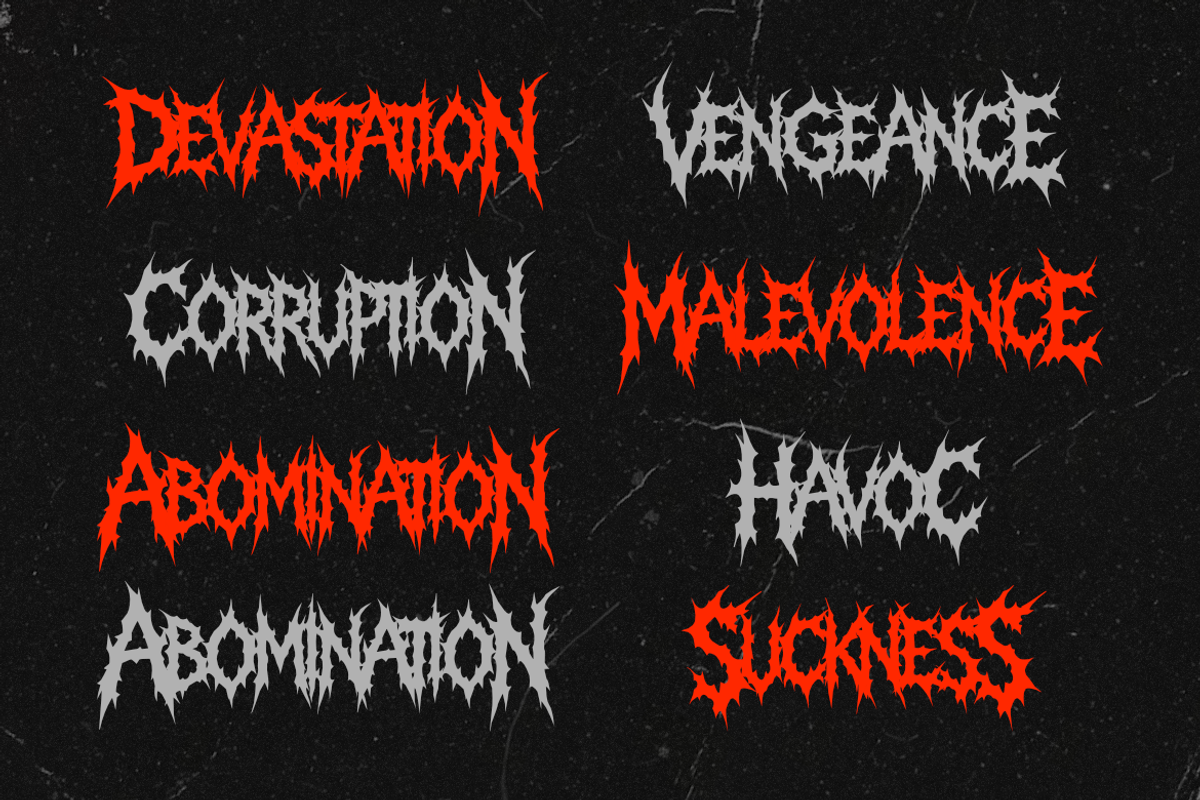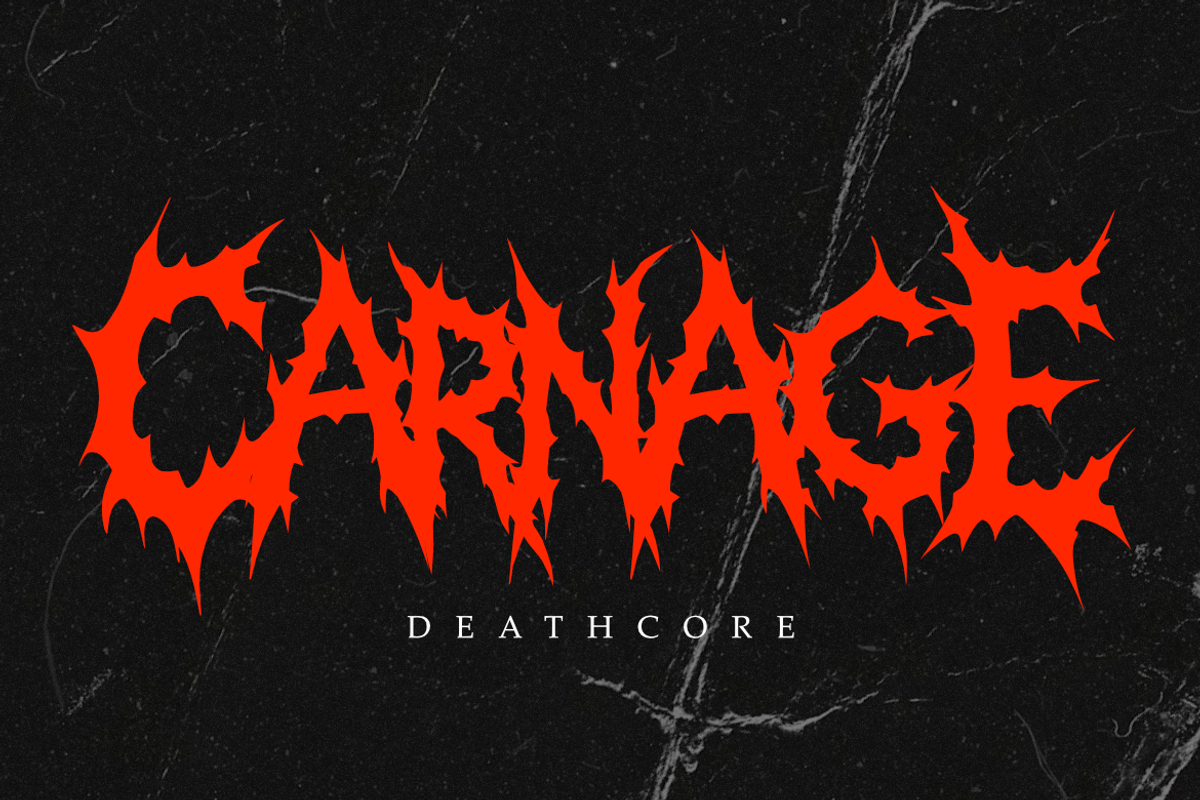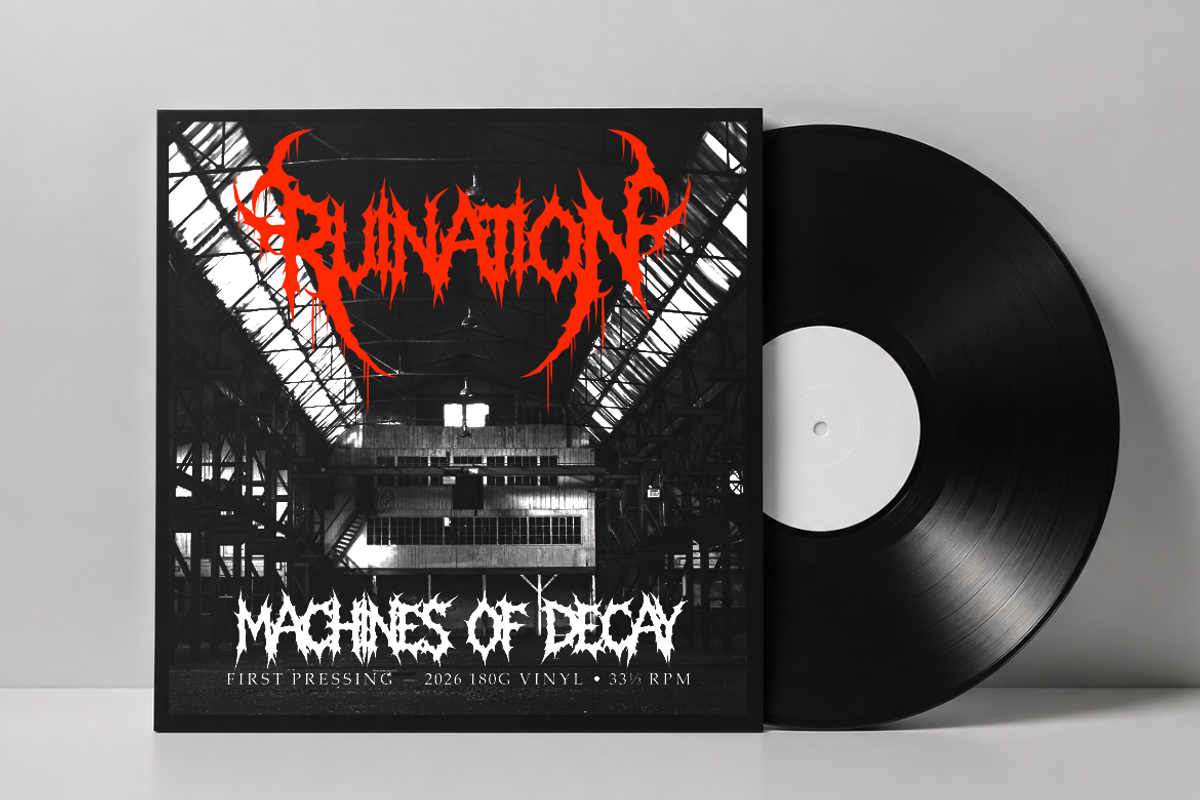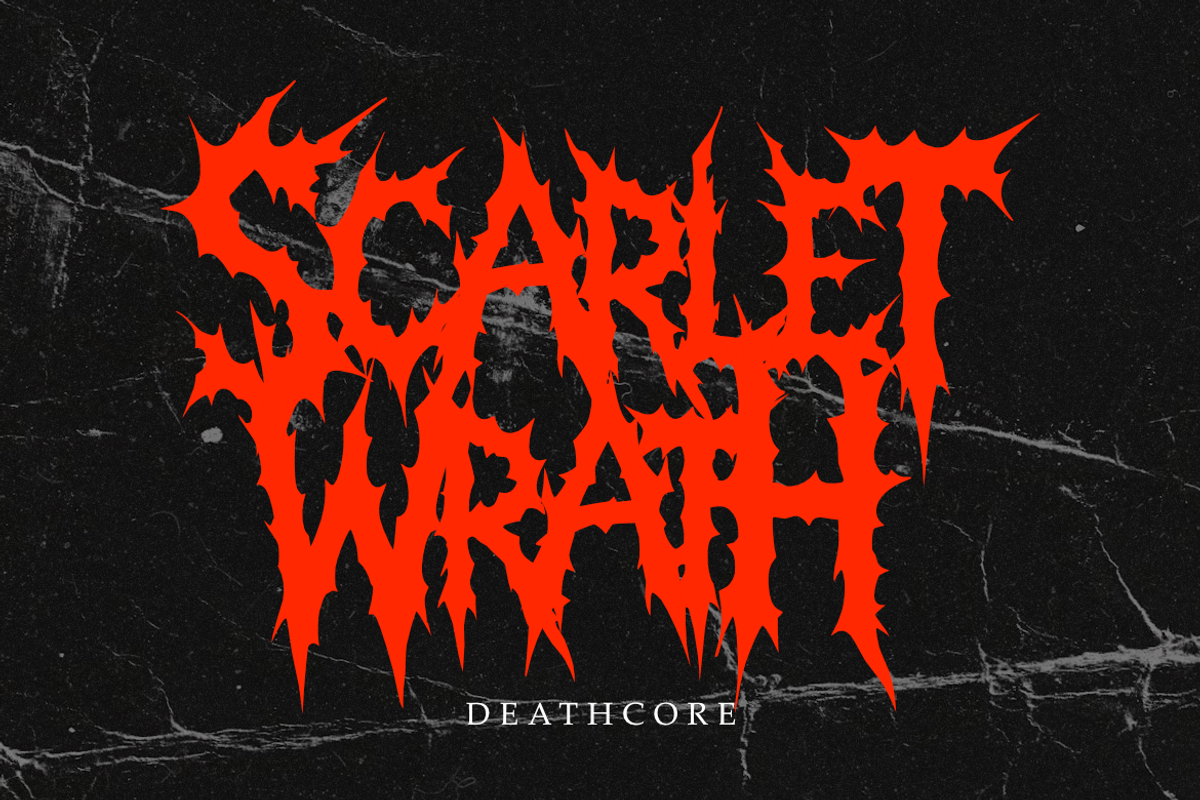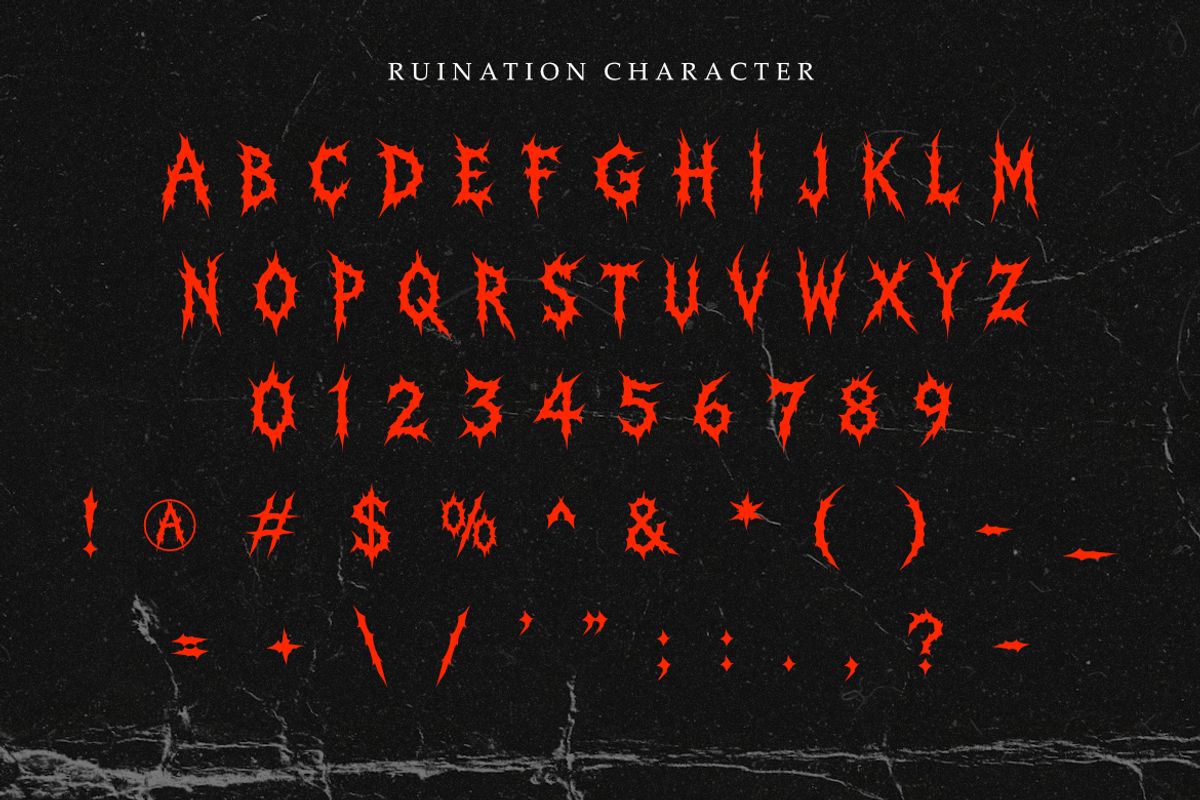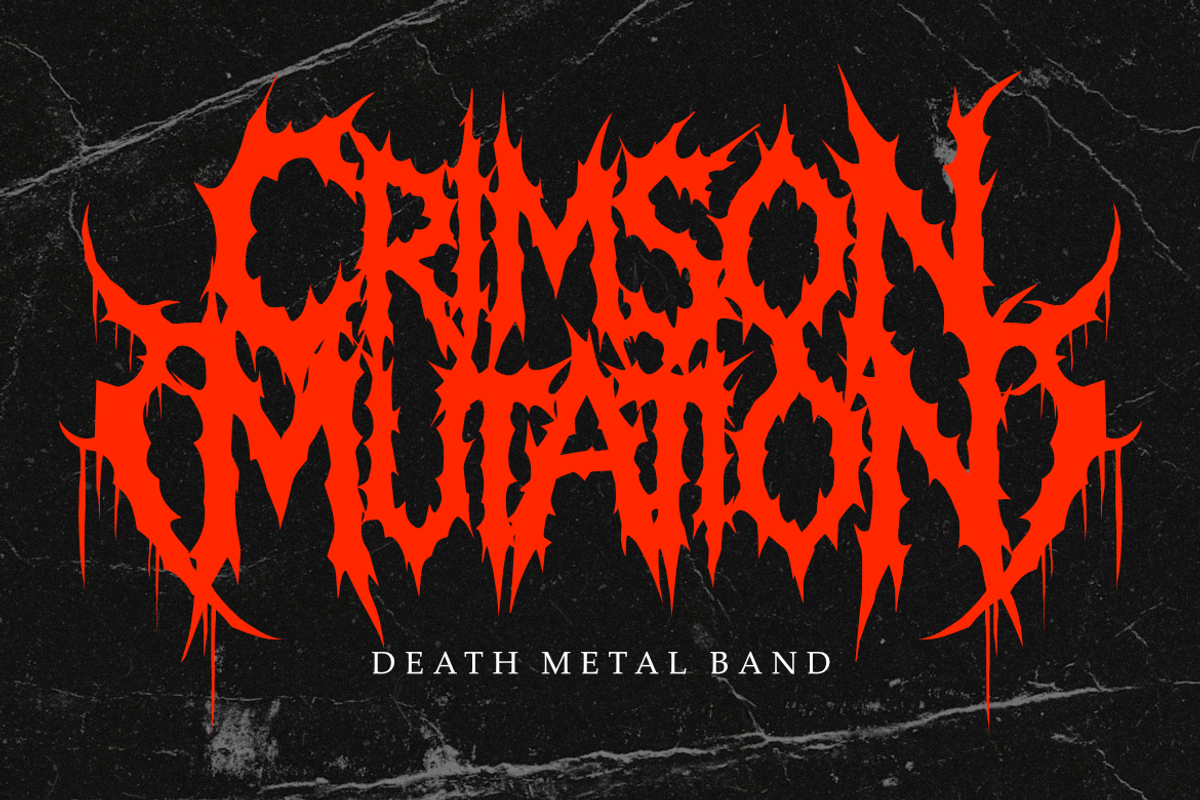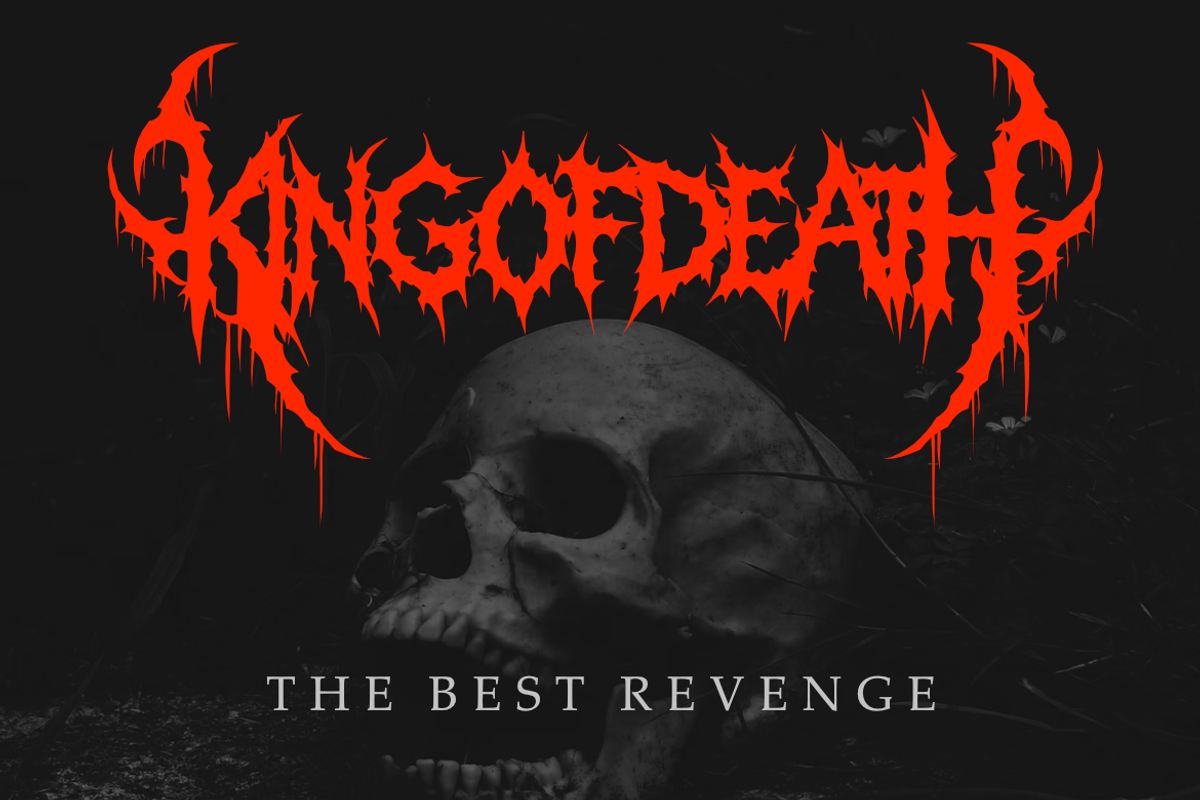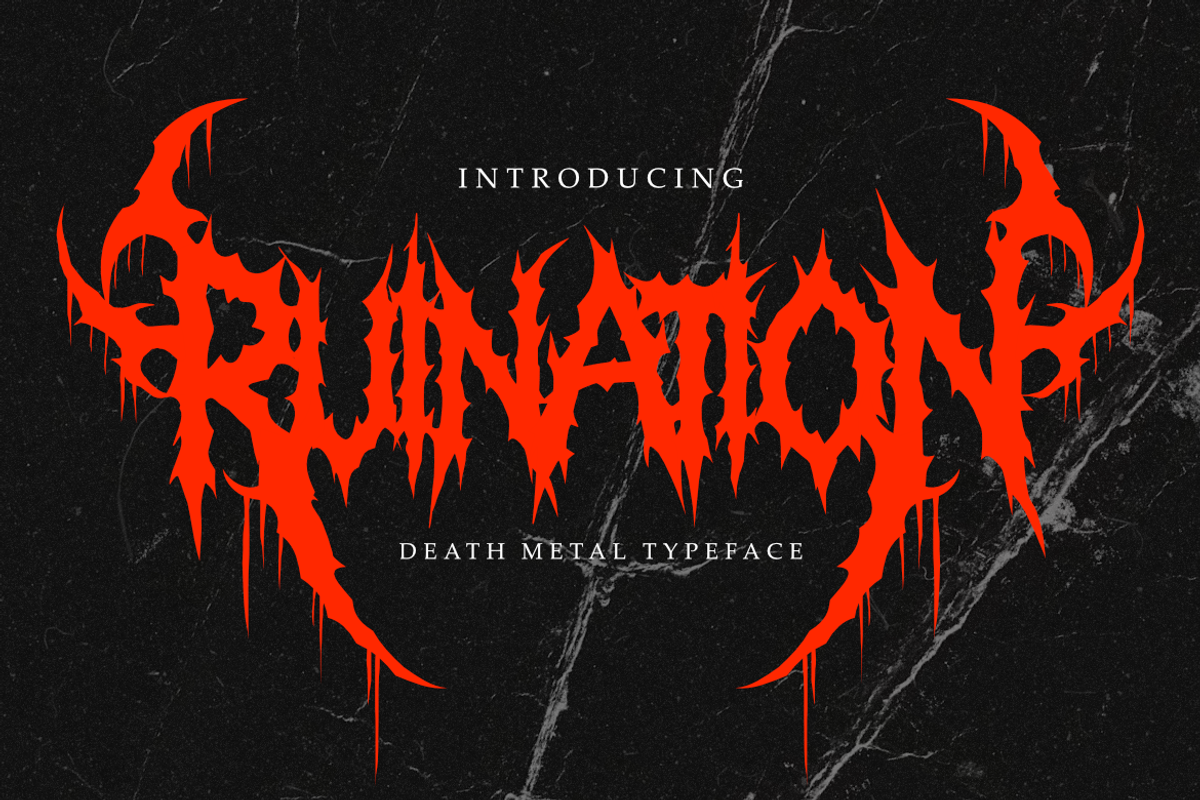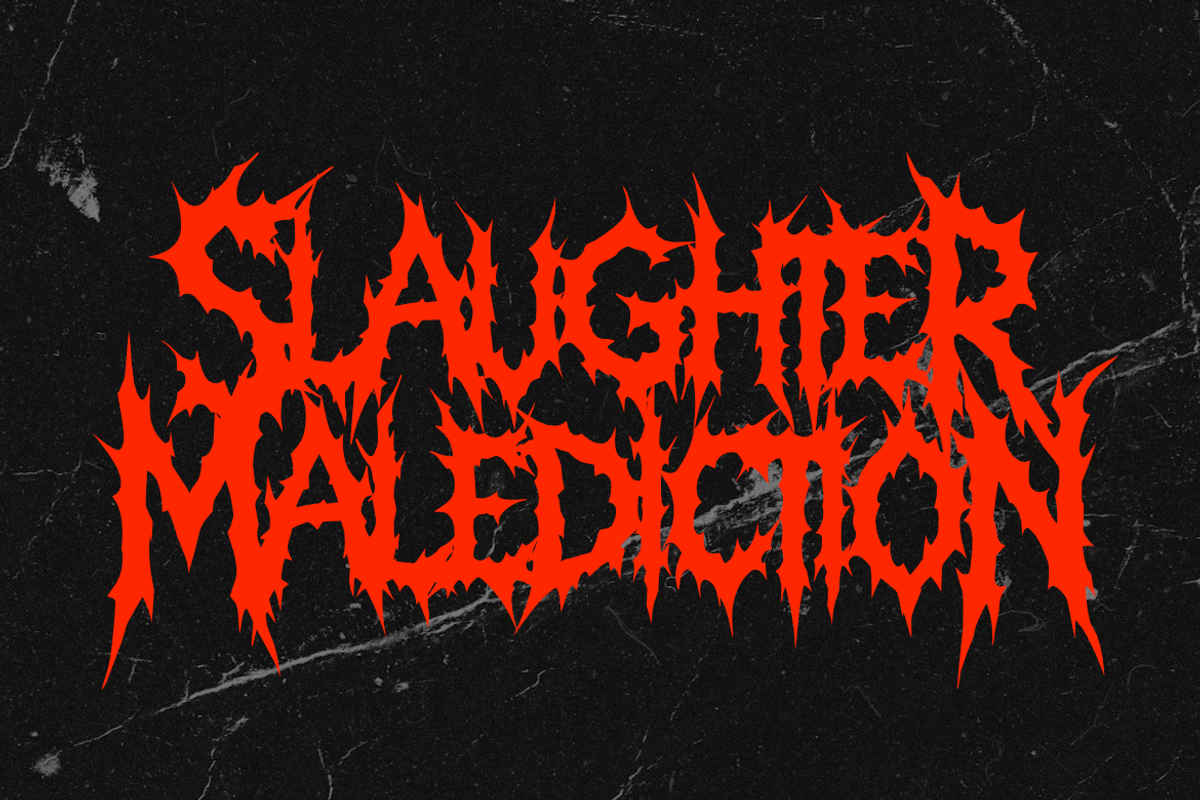
Ruination - Death Metal Font
Ruination is an extreme Death Metal display font built with razor-sharp spikes, distorted organic forms, and aggressive ornamental details. Its chaotic yet highly recognizable letterforms create a brutal visual identity inspired by underground metal culture, horror aesthetics, dark artwork, and extreme music.
Featuring dramatic extensions, jagged edges, and intense silhouettes, Ruination transforms words into powerful graphic compositions. Its expressive construction is designed to create an immediate visual impact, making it especially effective for projects that demand an extreme, sinister, and uncompromising atmosphere.
Ruination is ideal for death metal band logos, album artwork, horror titles, dark posters, gothic identities, underground music graphics, occult-inspired artwork, and other projects requiring an aggressive typographic style.
Uppercase Letters
Extreme Death Metal Style
Sharp & Distorted Letterforms
Organic Spikes & Extensions
Aggressive Display Construction
Dark Gothic Aesthetic
Death Metal Band Logos
Black Metal Identity
Album Artwork
Music Branding
Horror Titles
Gothic Logos
Dark Posters
Underground Music Graphics
Occult Artwork
Horror Branding
Extreme Music Identity
Dark Visual Campaigns